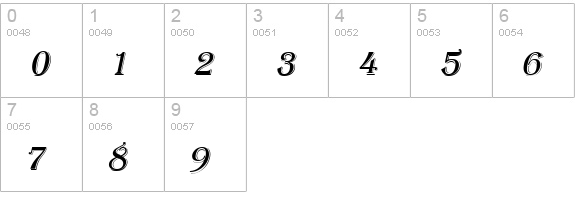
Tangiers Italic Font Details
Tangiers Italic is a distinctive, italic variant in the Tangiers typeface family \xE2\x80\x94 well suited to design and typography projects.
Introducing Tangiers Italic, a stunningly elegant font that exudes sophistication and charm. With its delicate curves and graceful strokes, this font is perfect for adding a touch of refinement to any project. Whether you're designing a logo, creating marketing materials, or crafting beautiful invitations, Tangiers Italic is sure to captivate your audience. The beauty of this font lies in its versatility. Its italicized form adds a unique flair to any text, making it stand out and leave a lasting impression. Whether you're aiming for a classic, timeless look or a more contemporary feel, Tangiers Italic has the flexibility to adapt and enhance your design. Not only is Tangiers Italic visually stunning, but it is also incredibly user-friendly. Its legible and well-balanced letterforms ensure that your text is easily readable, no matter the size or medium. This makes it ideal for both print and digital projects, allowing you to effortlessly convey your message with clarity and style. What's more, Tangiers Italic is freely available to download at FontsMarket.com. This means that you can easily access this remarkable font without any hassle or cost. Whether you're a design professional or a passionate hobbyist, having access to high-quality fonts like Tangiers Italic can truly elevate your creative endeavors. So why wait? Unleash your creativity and make a statement with Tangiers Italic. Download it now from FontsMarket.com and discover the endless possibilities that this font has to offer. Whether you're designing for personal or professional use, Tangiers Italic is the perfect choice for those seeking an exquisite font that seamlessly combines beauty and functionality.